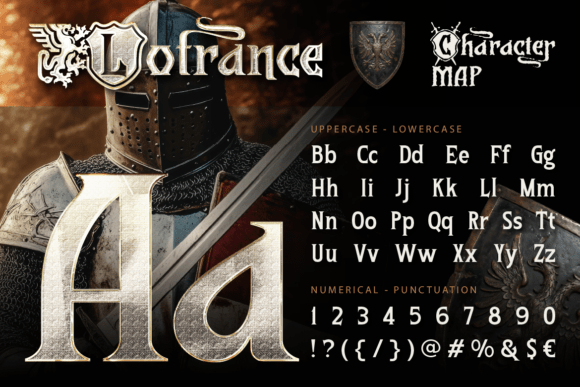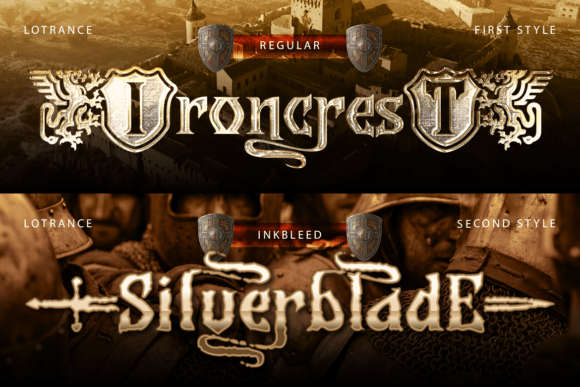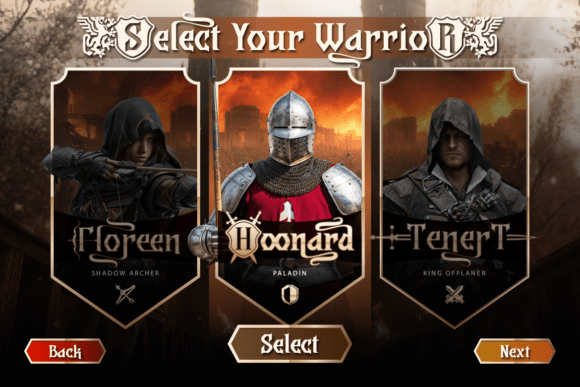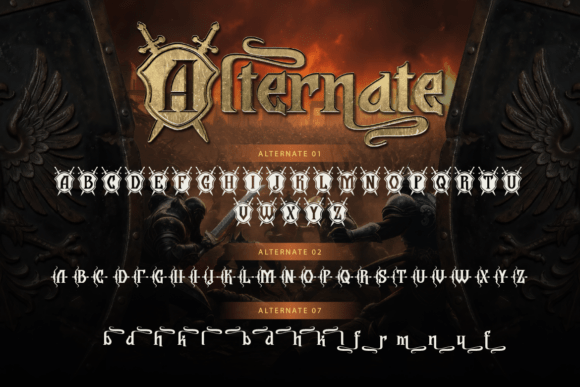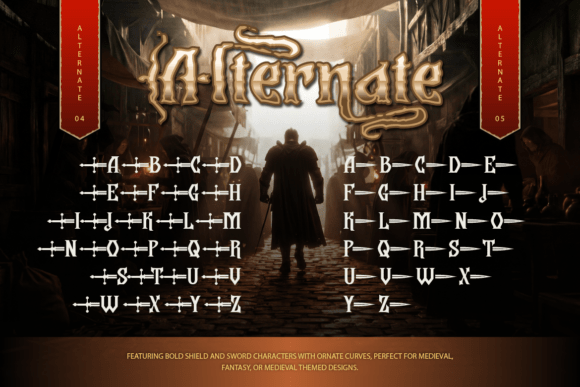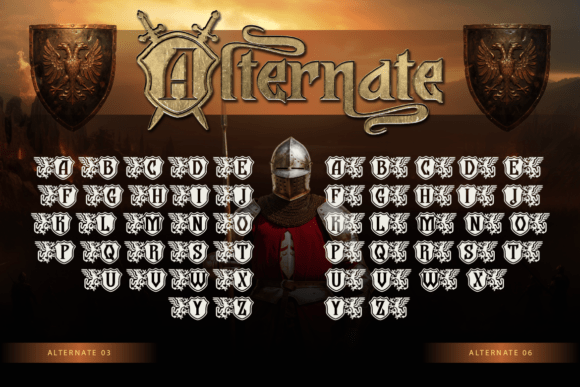
Introduction to Lotrance Font
Imagine you’re sitting in a dimly lit, medieval-inspired tavern, surrounded by knights and adventurers sharing tales of their epic quests. You stumble upon an ancient, worn-out parchment, and as you unfold it, you’re greeted by the majestic sight of the Lotrance Font. Its bold, shield-style letters and elegant curves transport you to a world of fantasy and legend. Whether you’re a seasoned designer or a creative enthusiast, the Lotrance Font is sure to ignite your imagination and inspire your next project.
As a valuable design resource, the Lotrance Font offers a high-quality, transparent background that allows you to focus on the creative aspects of your project. With its distinctive style, this font is perfect for designers looking to add a dramatic and legendary feel to their titles, branding, or UI/UX designs. And the best part? You can download it for free, making it an essential tool for any creative project.
Key Features of Lotrance Font
- High-quality, modern design suitable for creative projects and professional use.
- Transparent background, allowing for easy customization and integration with various design elements.
- Designed with a clear, legible font style, ideal for body text, headings, and titles in various creative projects.
Honest Review: Lotrance Font
As a designer, I’m always on the lookout for high-quality fonts to elevate my creative projects. Recently, I stumbled upon the Lotrance Font, and I’m excited to share my thoughts on this design resource.
What works well: ✨ The Lotrance Font has a unique, elegant design that’s perfect for creative projects requiring a touch of sophistication. The font is available for free download, making it an excellent addition to any designer’s arsenal. The transparent background feature is also a plus, allowing for seamless integration into any design.
- Unique and elegant style
- Transparent background feature
Limitations: ⚠️ While the Lotrance Font is a great addition to any design library, it may not be suitable for projects requiring a bold or dramatic font. Additionally, the font’s versatility is somewhat limited, making it better suited for specific design niches.
Overall impression: I’m impressed with the Lotrance Font’s high-quality design and unique style. While it may have some limitations, it’s an excellent resource for designers looking to add a touch of elegance to their creative projects.
Getting the Most Out of the Lotrance Font
For optimal results, use the Lotrance Font on a transparent background to achieve a clean and minimalist design aesthetic. Experiment with different font sizes and colors to create a visually appealing effect.
The Lotrance Font is ideal for various design projects, including logos, business cards, and social media graphics. Its clean and modern design makes it a great choice for creative professionals seeking a high-quality design resource.